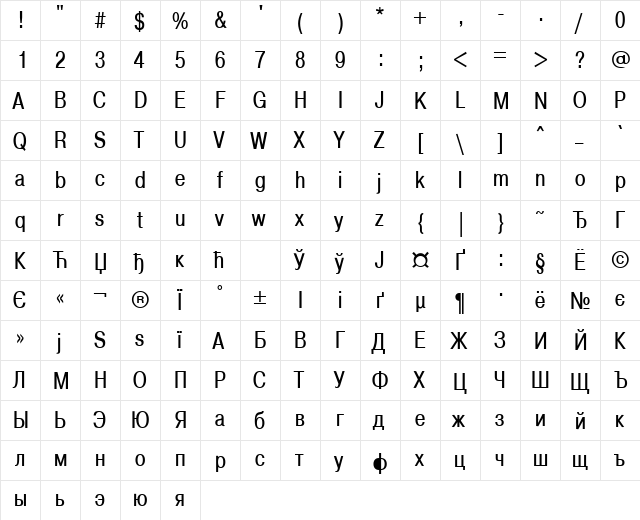
PragmaticaCondC Normal Font Preview
PragmaticaCondC Normal
Design Context for PragmaticaCondC Typeface
PragmaticaCondC is a composed and adaptable typeface that performs quietly and consistently across a wide range of design contexts. The condensed width makes it efficient for tight spaces without sacrificing legibility.